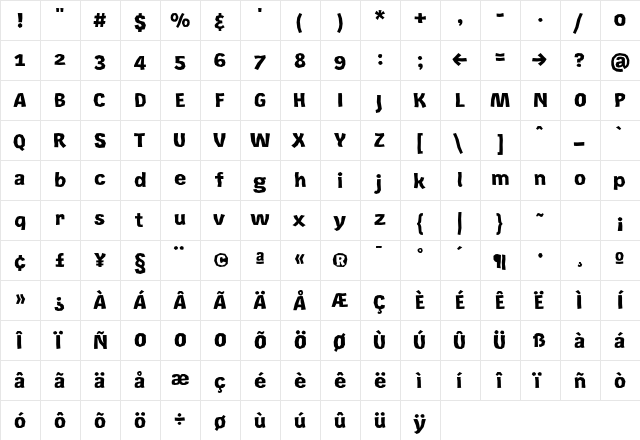
Rekord Black Regular
Design Context for Rekord Black Typeface
Rekord Black offers clean, dependable letterforms without strong stylistic allegiance, making it a practical choice for designers who need flexibility.